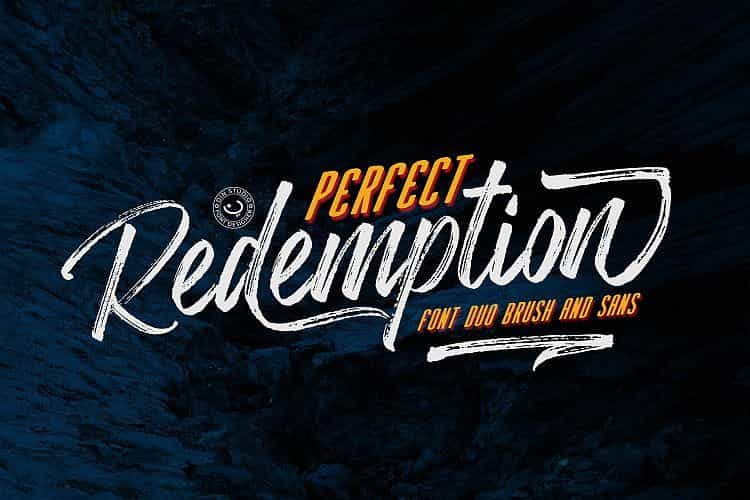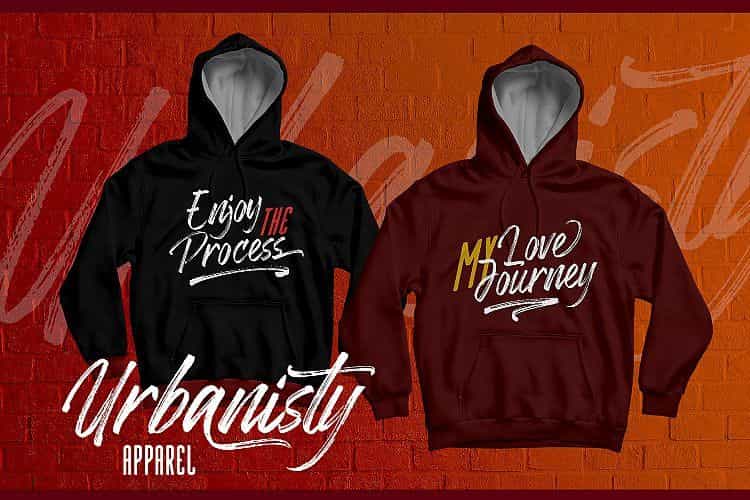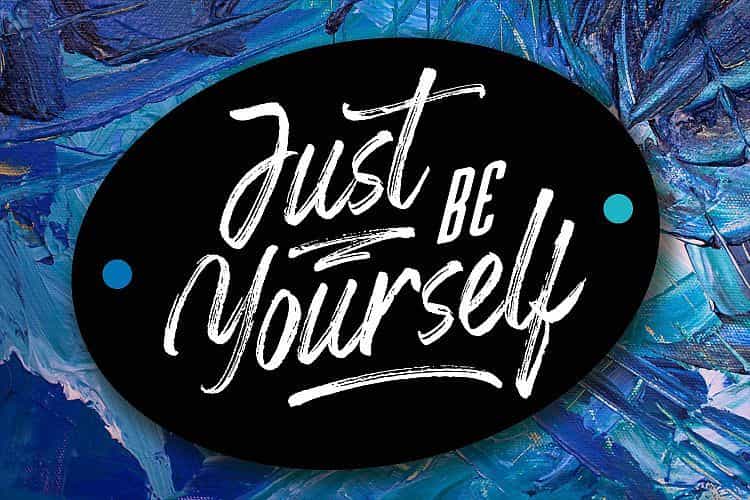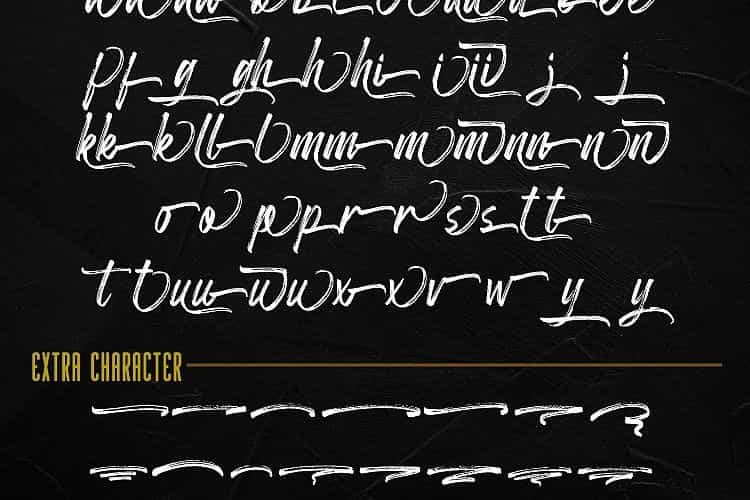
Discover Perfect Redemption Brush Font, part of the Brush collection—a versatile and unique font perfect for adding a personal touch to your projects. Download it for free and enjoy crafting designs with style, from invitations to social media posts. This font is available exclusively for personal use, giving you the freedom to create without limits. Unlock your creativity with Perfect Redemption Brush Font today!
Introducing Perfect Redemption Font. Perfect Redemption is designed and shared by Din Studio. Perfect Redemption is a brush font and combines with sans font. Made with naturally brush. The texture from the brush font will make your design more beautiful and powerful. This font is suitable for any design like branding, quotes, t-shirt printing and many more. Caps font by Flamde studio, Purbalingga, Indonesia